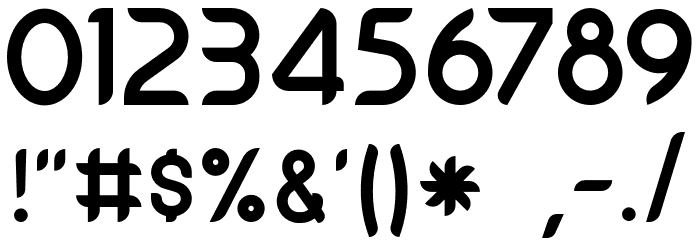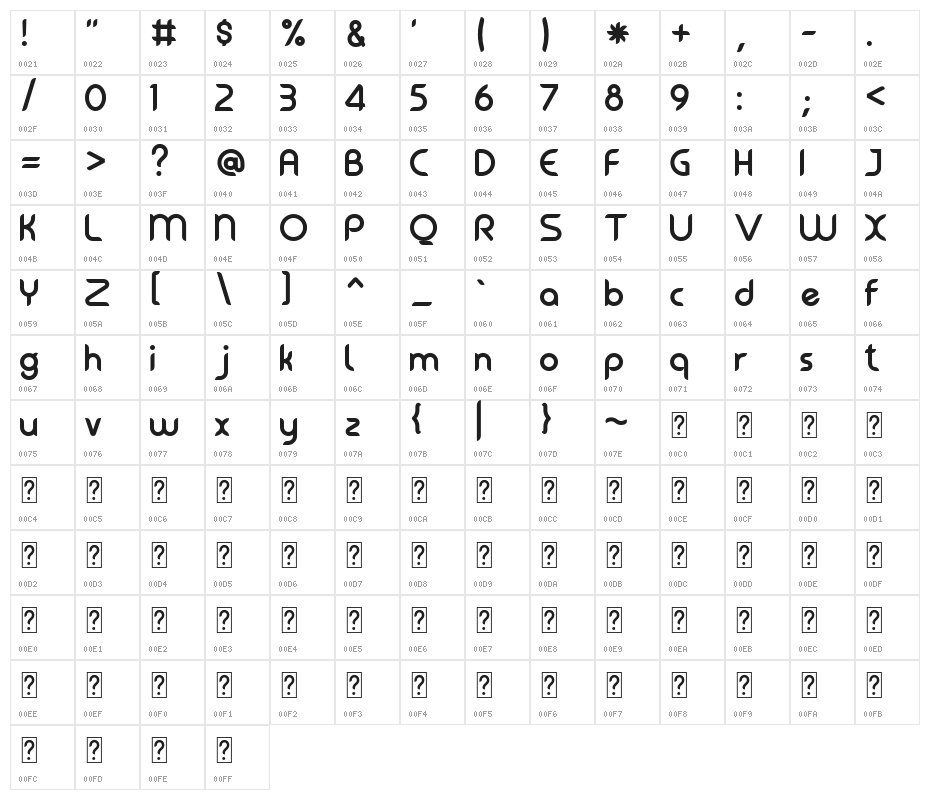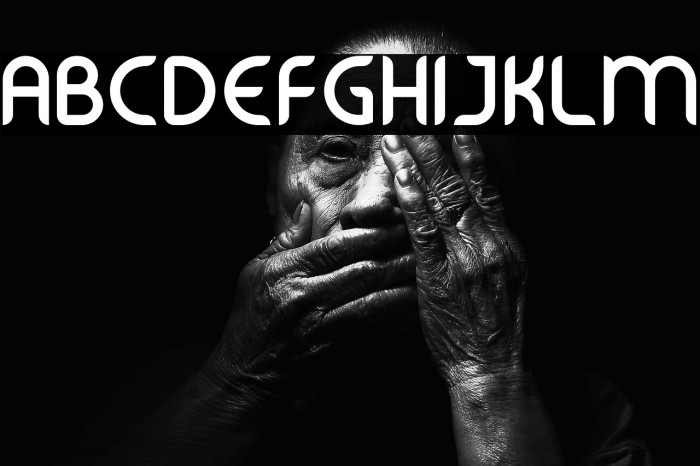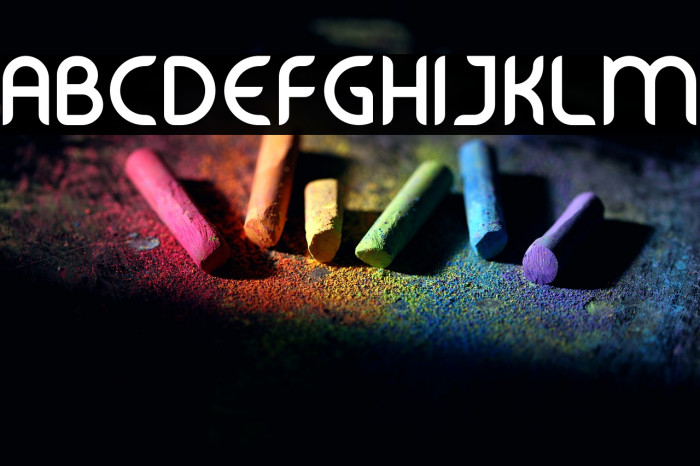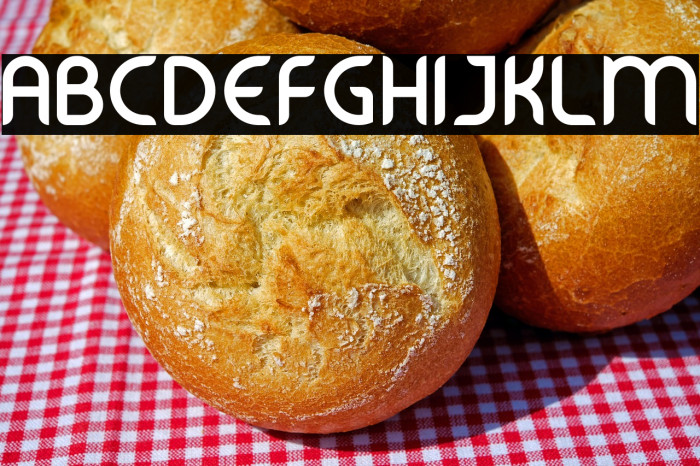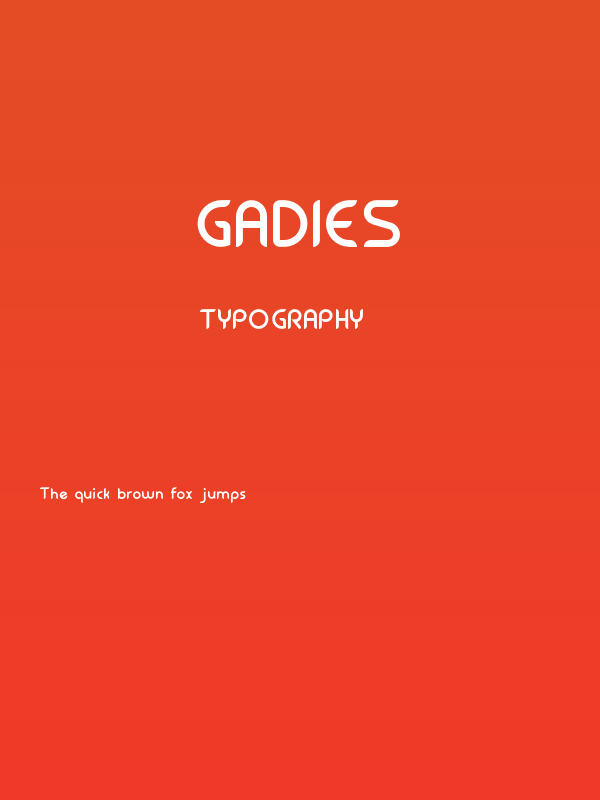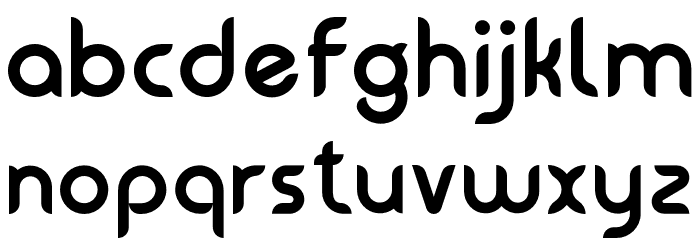
gadies Font
gadies Description
This font features a playful and rounded design, characterized by its smooth curves and uniform stroke width. The letters have a friendly and approachable appearance, making it suitable for informal and creative projects. The uppercase and lowercase letters maintain a consistent style, with rounded edges and a slightly condensed form. The numerals are bold and clear, ensuring readability. Special characters are well-integrated, maintaining the overall rounded aesthetic. This font is versatile, offering a modern yet whimsical feel.
| Proposed Projects | Ideal for children's books, playful branding, casual invitations, and creative posters. |